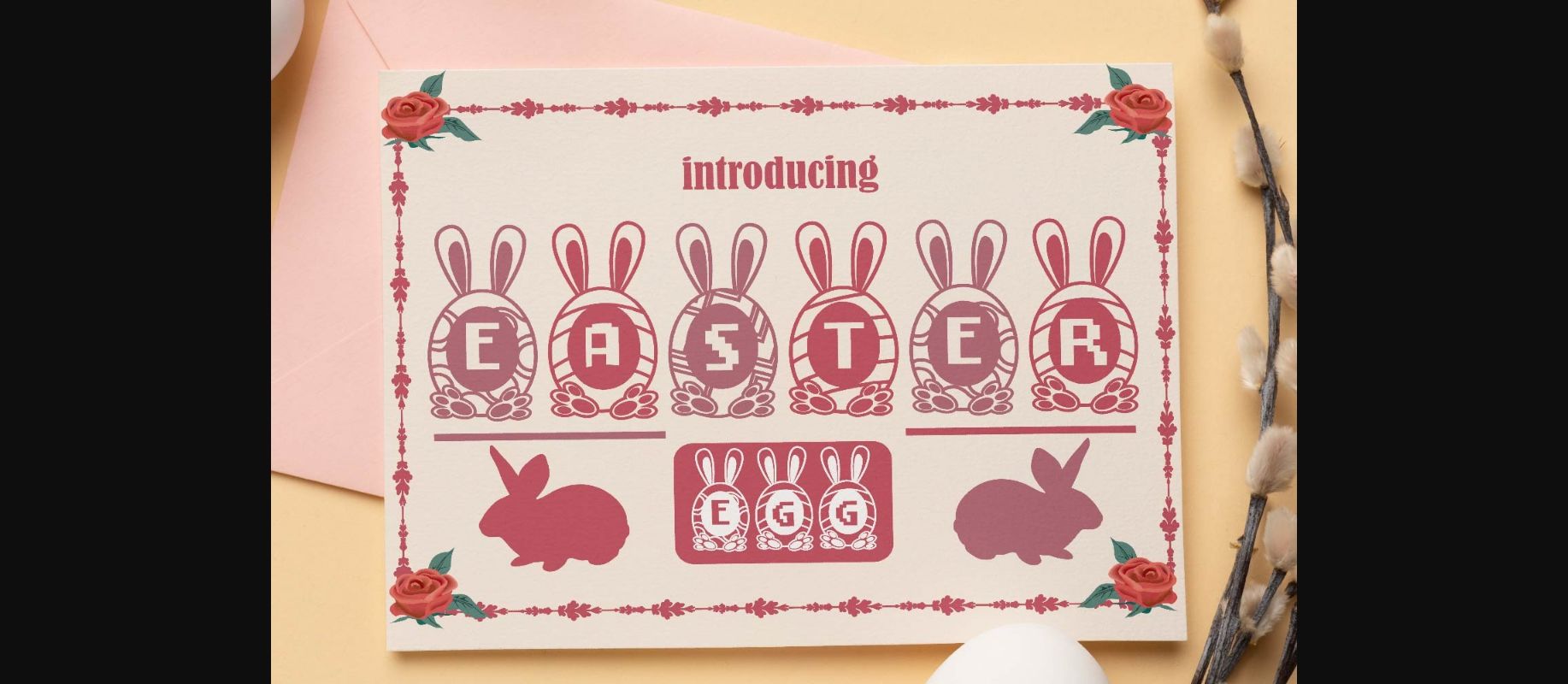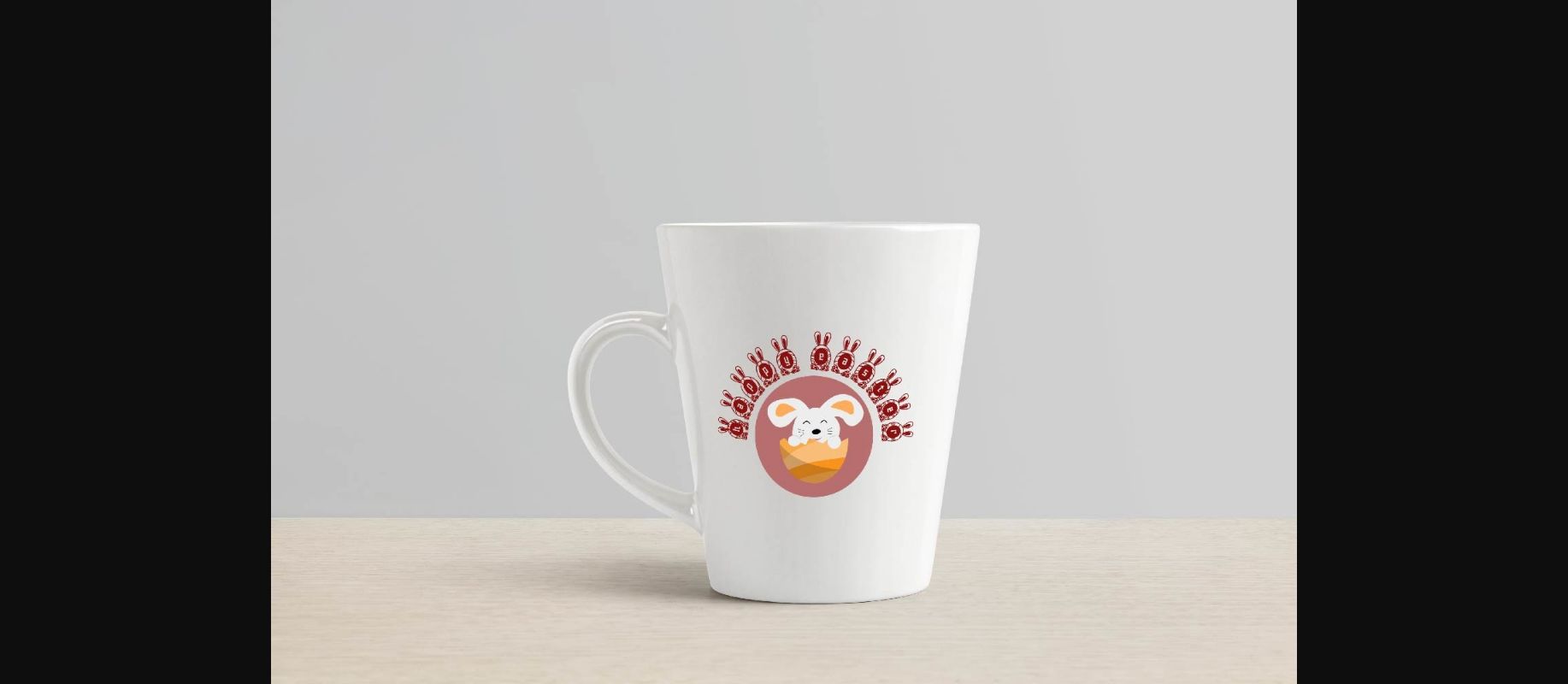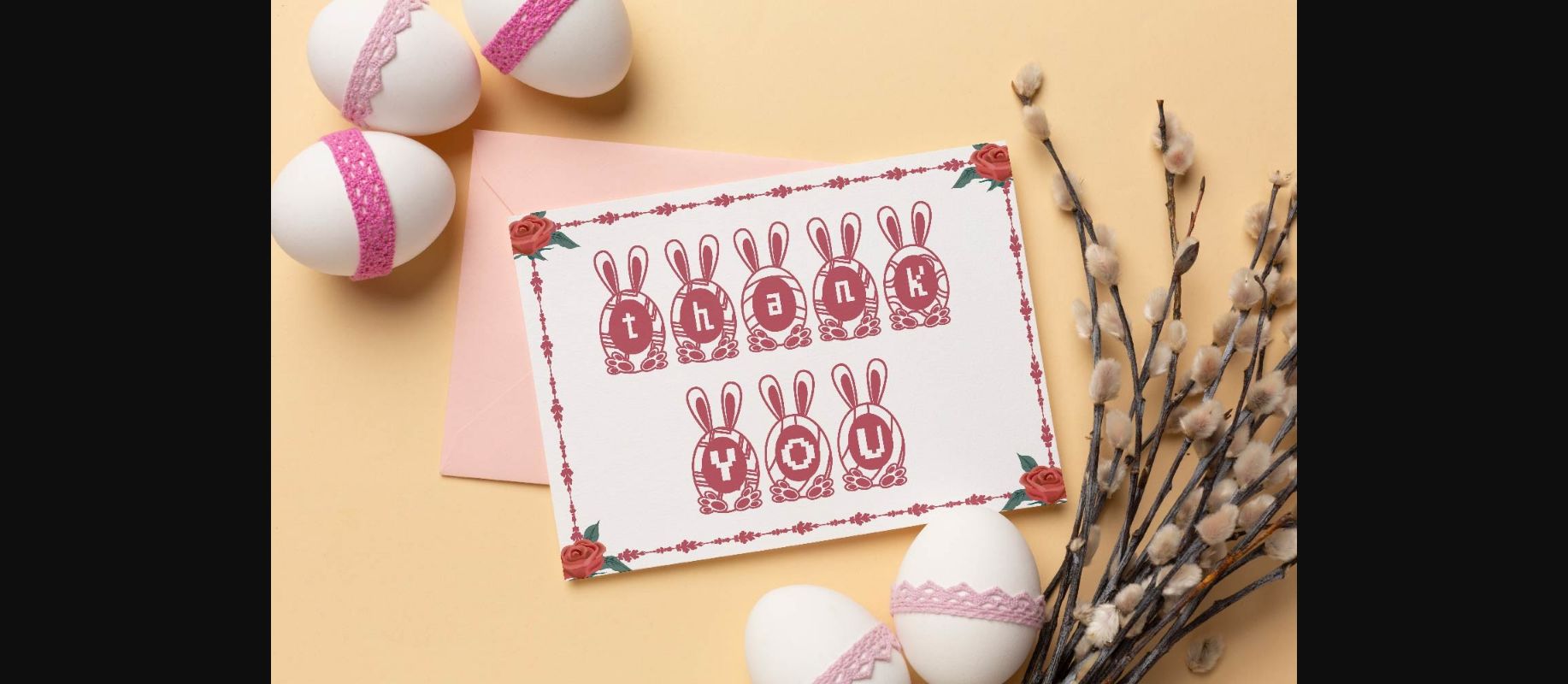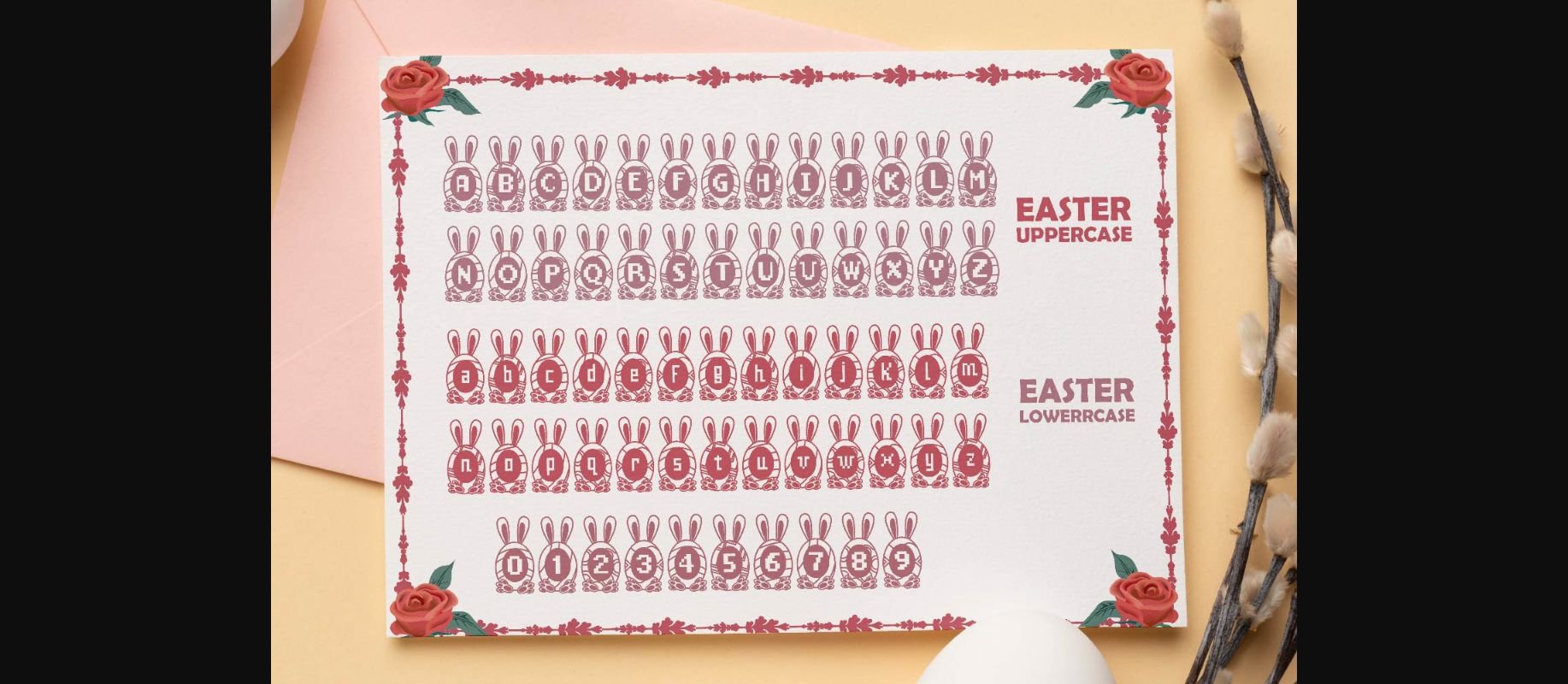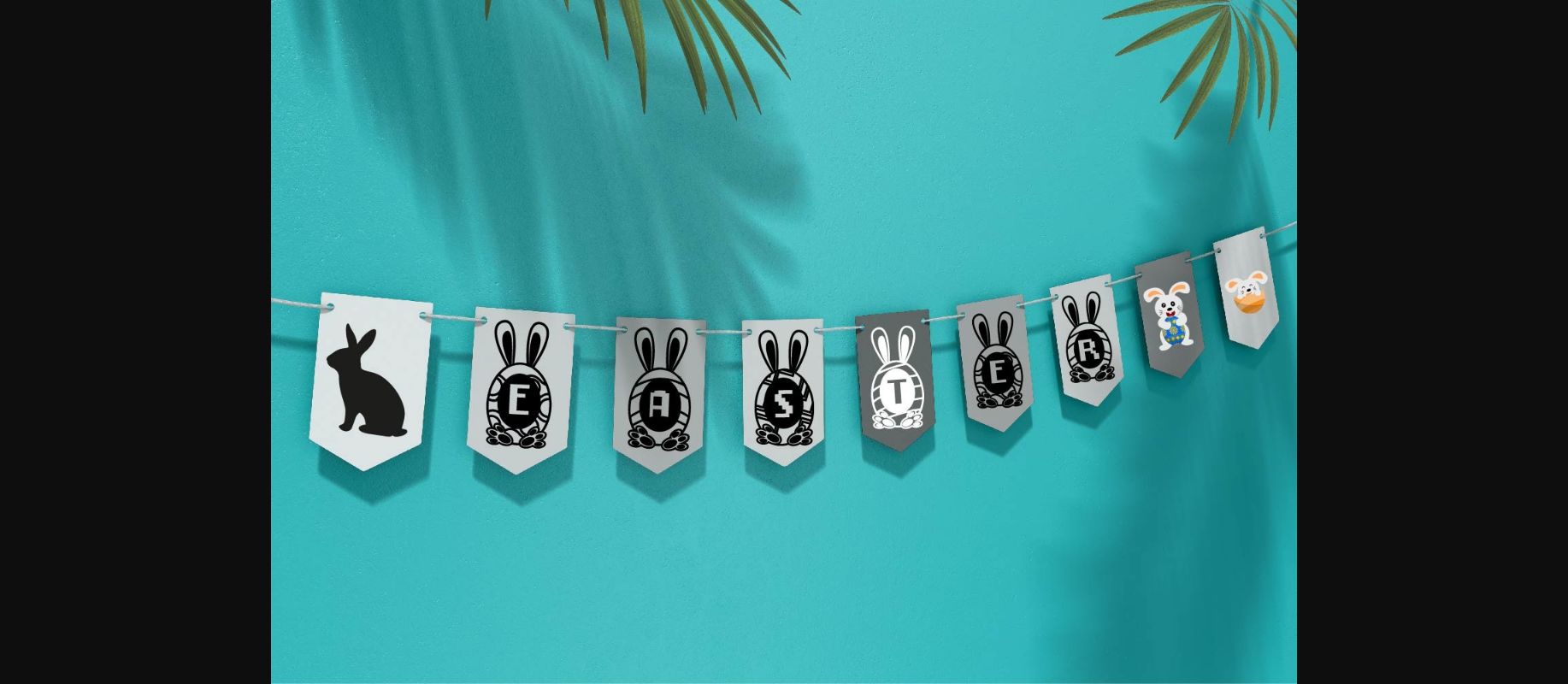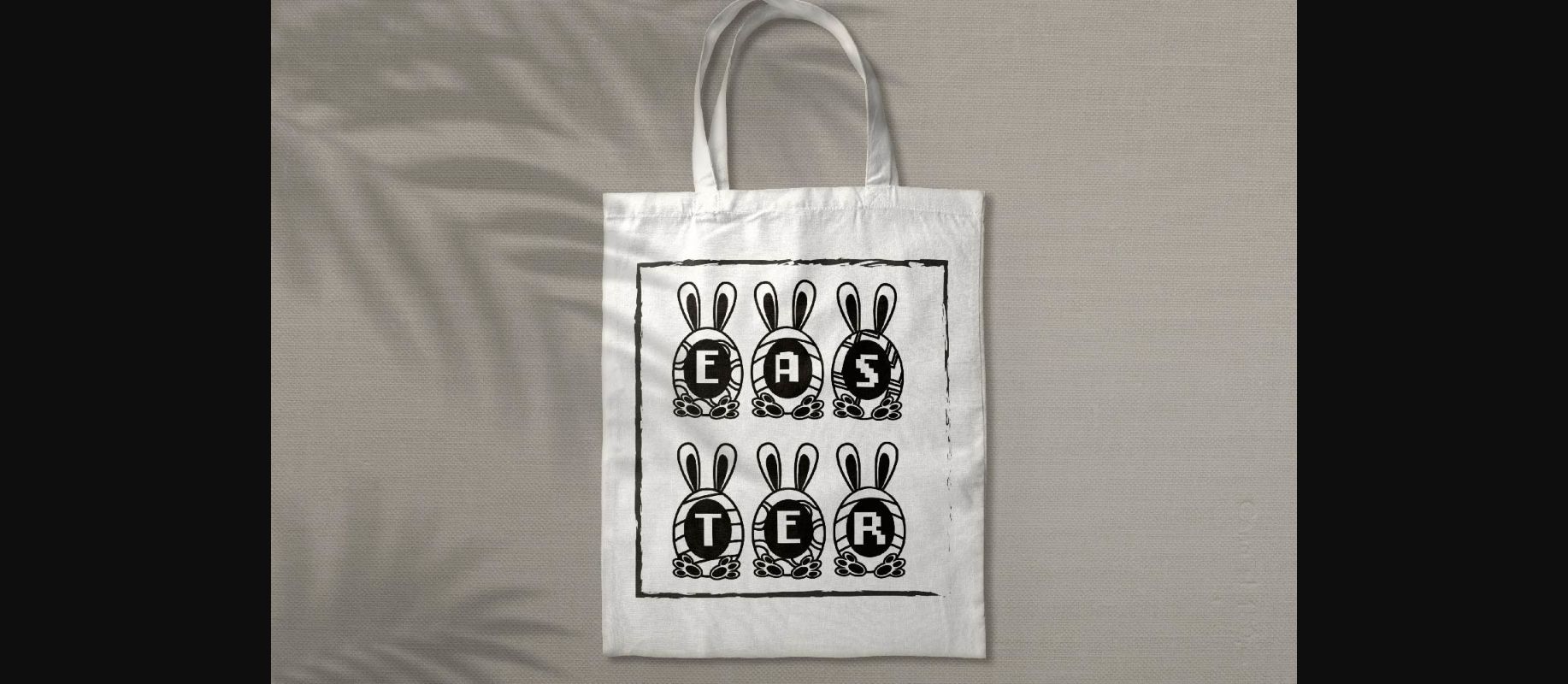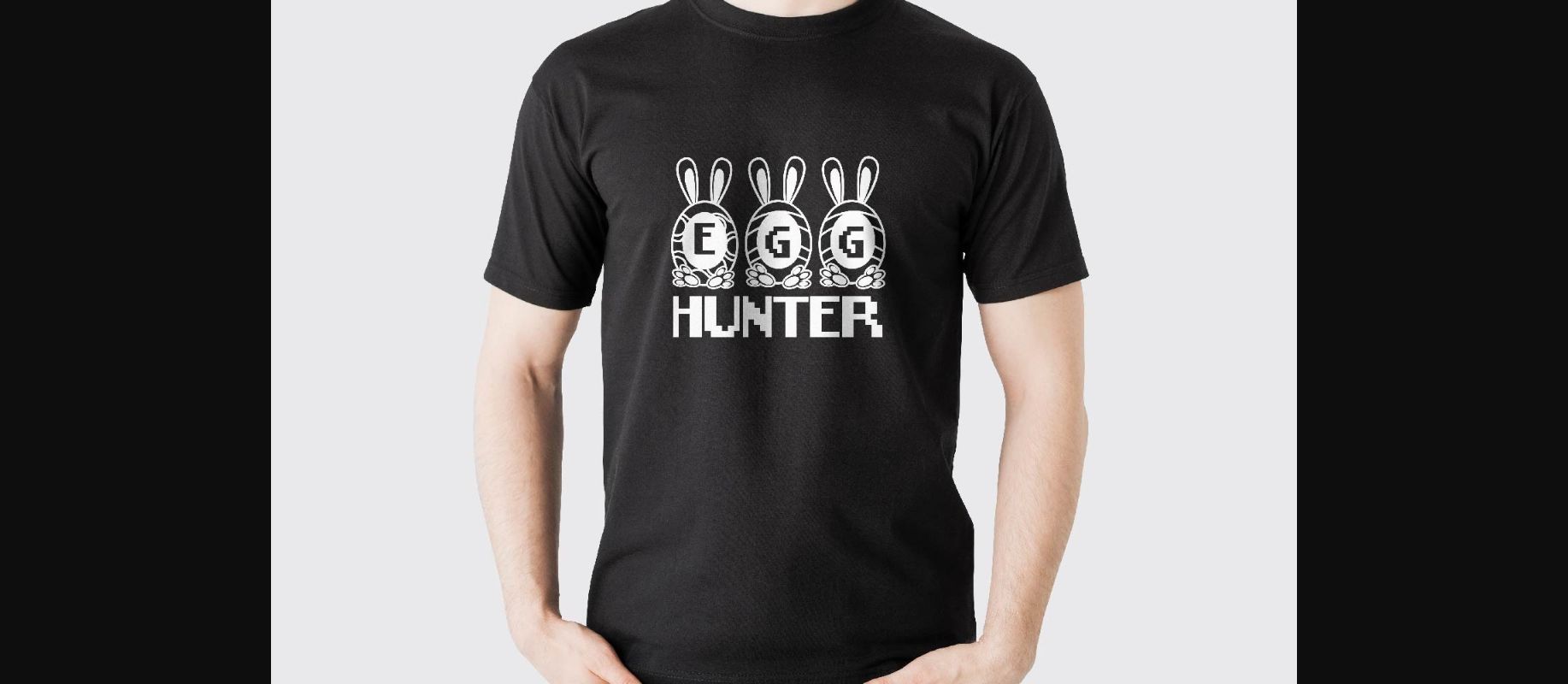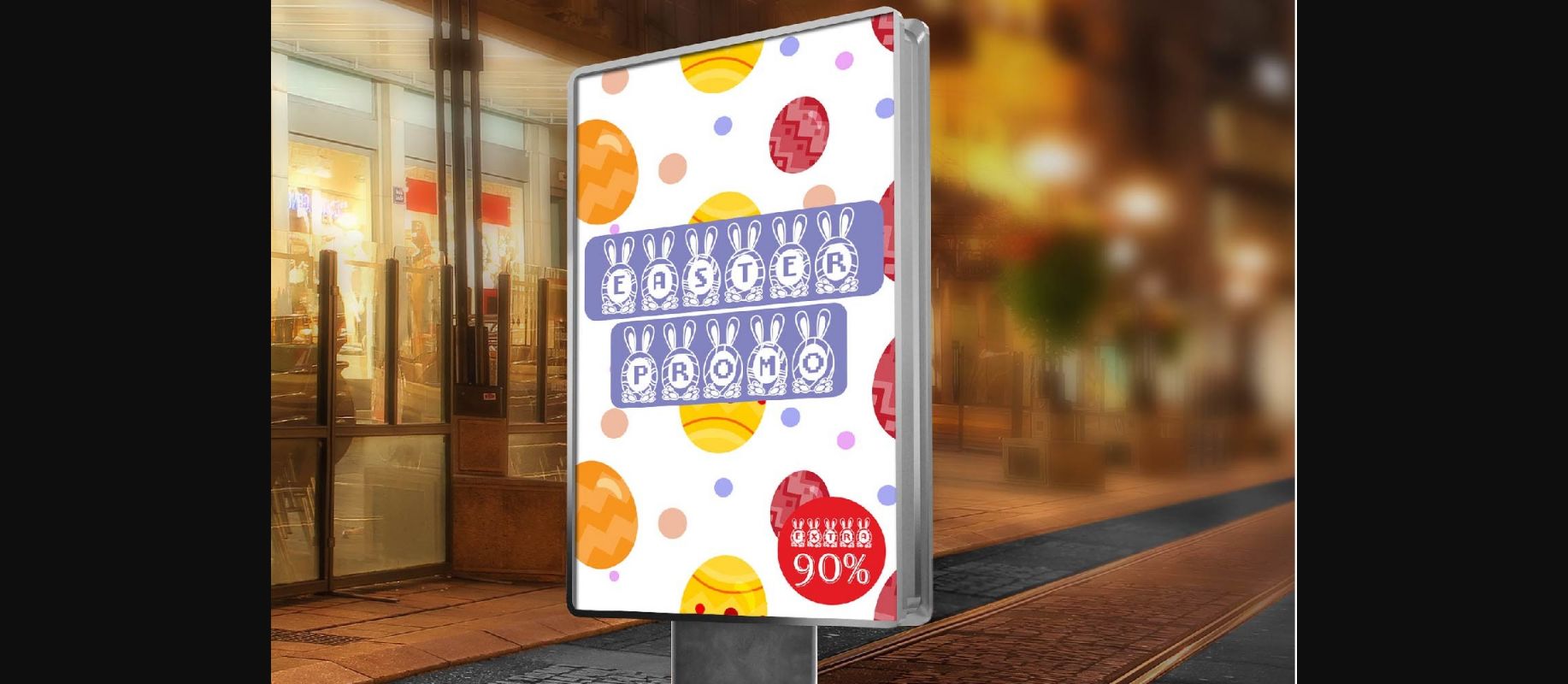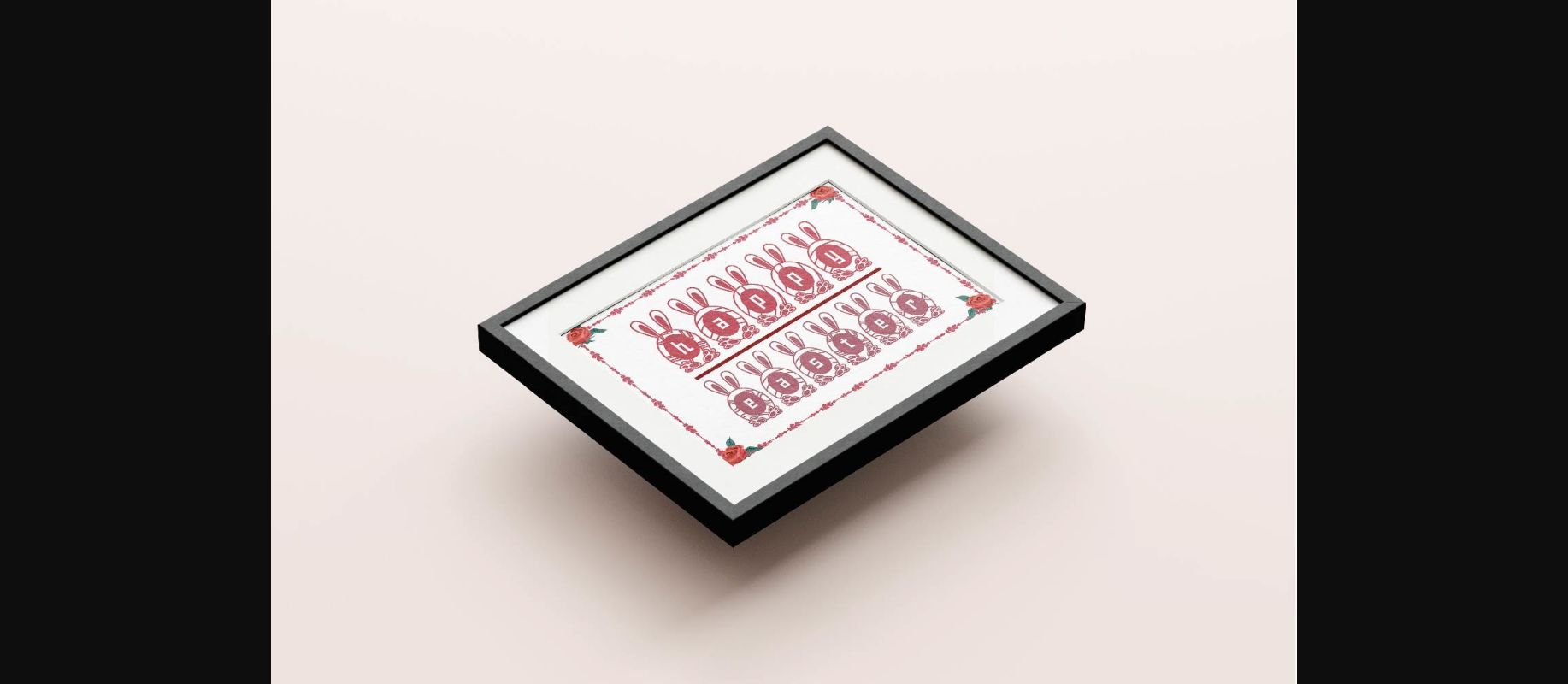
HomeDecorative FontsEaster Egg Font Decorative Fonts Easter Egg Font FacebookXPinterestWhatsApp 1 of 11 ... Easter Egg Font Poster 2... Easter Egg Font Poster 3... Easter Egg Font Poster 4... Easter Egg Font Poster 5... Easter Egg Font Poster 6... Easter Egg Font Poster 7... Easter Egg Font Poster 8... Easter Egg Font Poster 9... Easter Egg Font Poster 10... Easter Egg Font Poster 11... About Easter Egg Font Easter Egg is a cute and cheerful decorative font. It embodies fun and authenticity and is the perfect choice for kids’ activities, crafts, t-shirt designs, or Easter projects. DOWNLOAD NOW People also explored Yumaidia Font Rosemero Emperor Font Exit Brush Font Love Strory Font Slowding Font Sparkling Winter Font Minimalisty Font East Java Font Hello Monday Font 404 0 TagsEaster Egg Font Previous articlePretty Posies Too FontNext articleGo Fishing Day Font LEAVE A REPLY Cancel reply Comment: Please enter your comment! Name:* Please enter your name here Email:* You have entered an incorrect email address! Please enter your email address here Website: Save my name, email, and website in this browser for the next time I comment. Personal Use Free GoodFay Personal Use Free Read more about this font Sweet Cake Personal Use Free Read more about this font Cute Messy Personal Use Free Read more about this font Consequences Personal Use Free Read more about this font BLOG Fonts That Capture the Spirit of New York City New York City is more than just a place—it’s an experience, a rhythm, a visual language... To increase your work productivity, choose the most readable fonts. Elegant Wedding Invitation Fonts – Handwritten & Script Fonts The 10 Best Handwriting Fonts to Add Personality to Your Designs